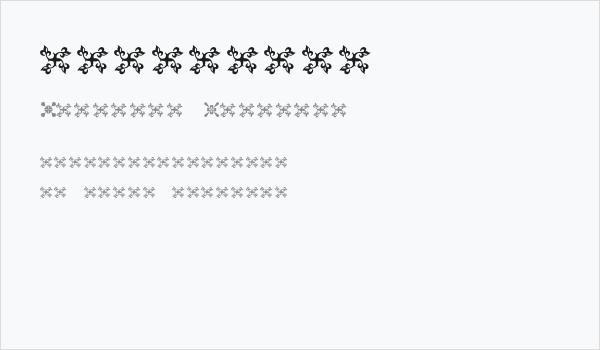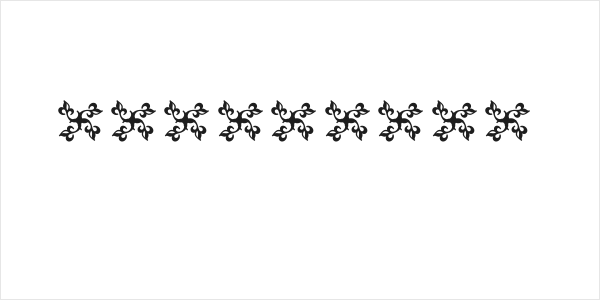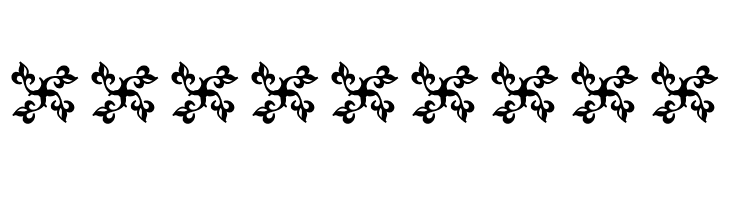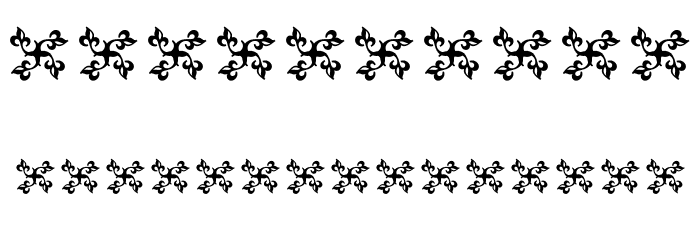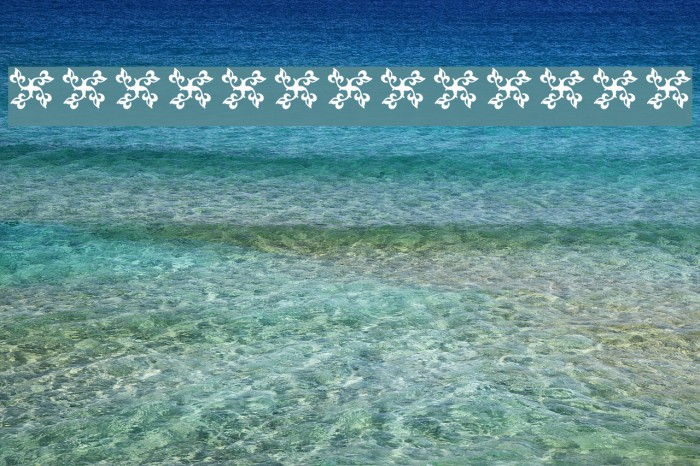
fondi-kpz Font
fondi-kpz Description
Ornamental decorative pattern featuring repeating fleur-de-lis style motifs, designed for use as borders or dividers rather than for standard text.
| Overall Style | Decorative, Ornamental |
| Use Case | Borders, Dividers, Decorative accents |
| Proposed Projects | Invitations, certificates, decorative borders, scrapbooking, ornamental dividers. |